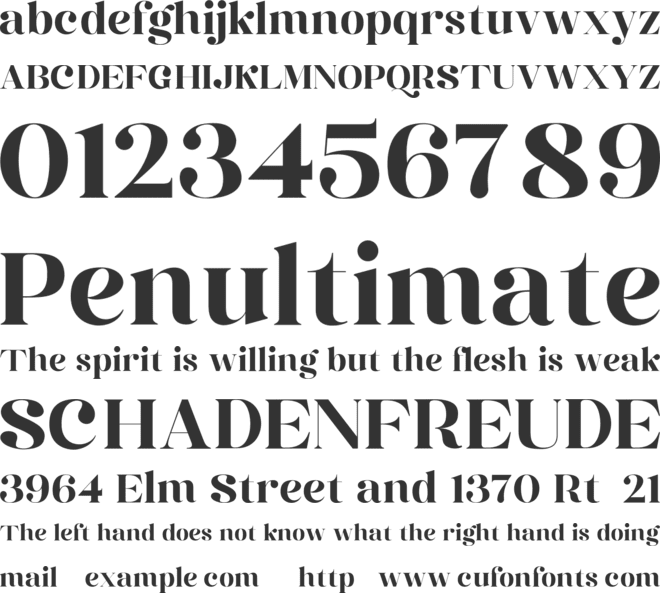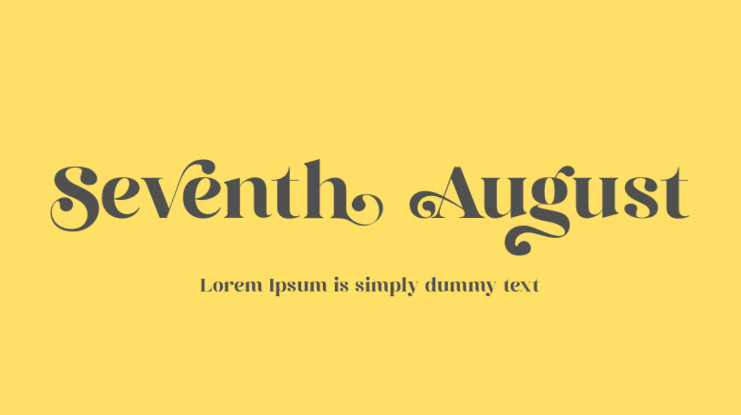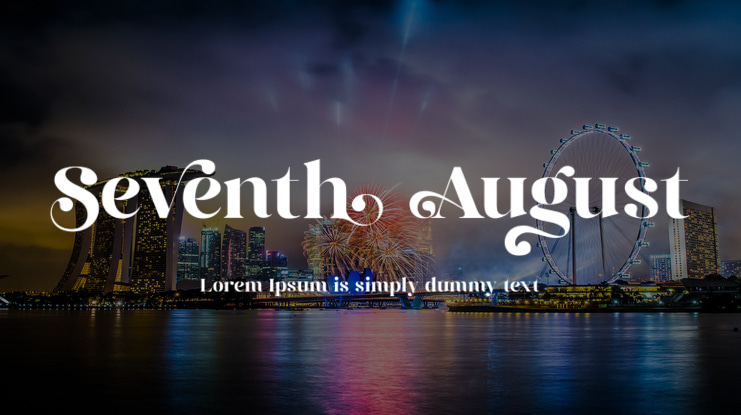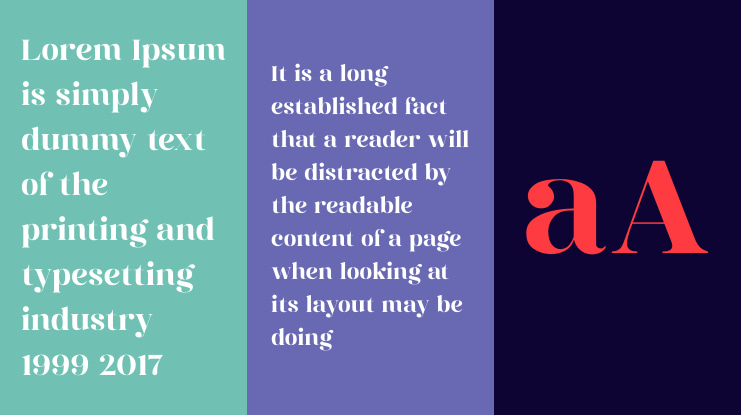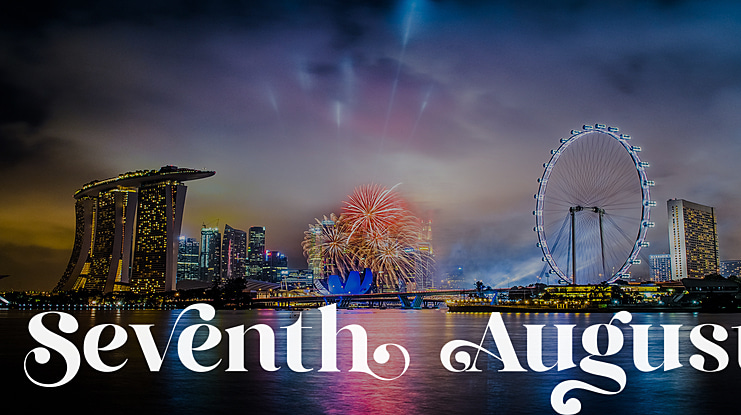
Seventh August Font
Seventh August is a beautiful bold serif typeface that has own unique style & modern look.
Seventh August is perfect for many purposes such as a headline, sub-headline, logo, and short body text for magazines, books, fashion, quotes, youth t-shirt, signboards, logos, and many more! Add it confidently to your projects, and you will love the results.